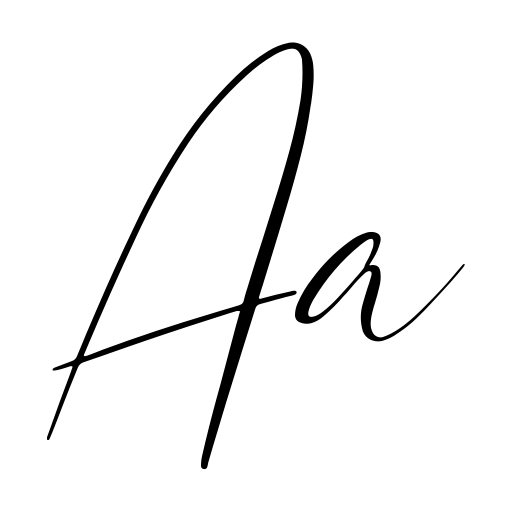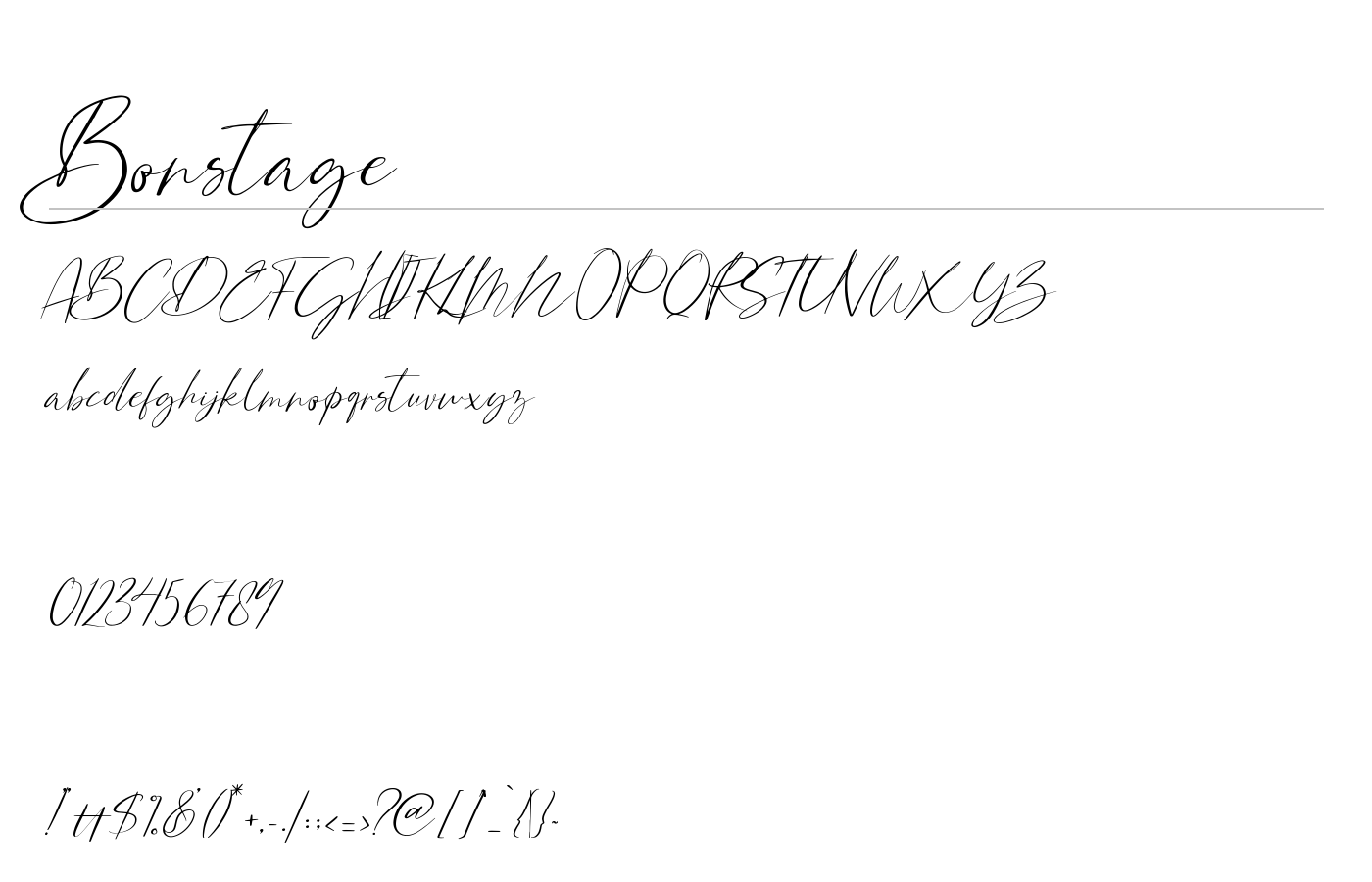
Bonstage is a delicate, handwritten script font with a thin, elegant stroke that conveys a sense of sophistication and grace. Its tall, flowing letterforms with a natural, slightly messy touch make it perfect for luxury branding, invitations, and feminine design projects that seek a modern yet personal feel. This font works best in large display uses such as logos and headlines where its refined details can truly shine.
Bonstage Font
About Bonstage Font